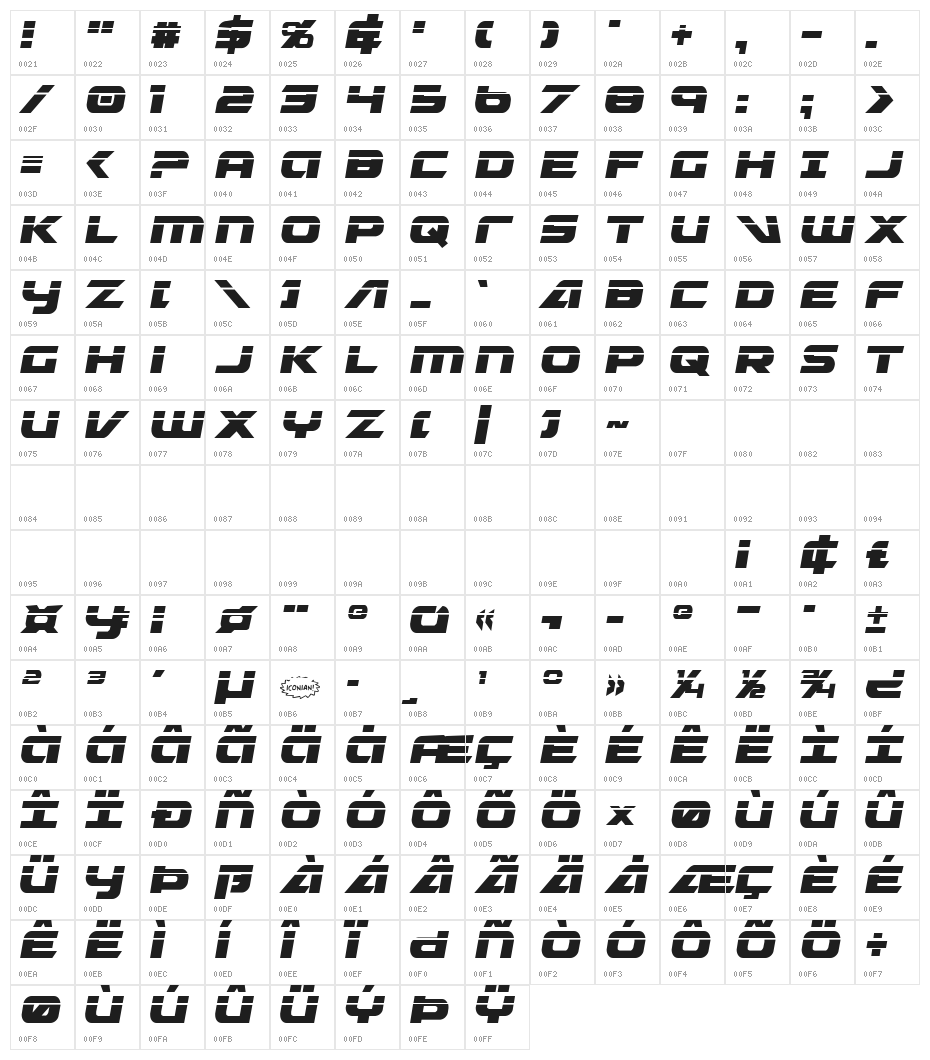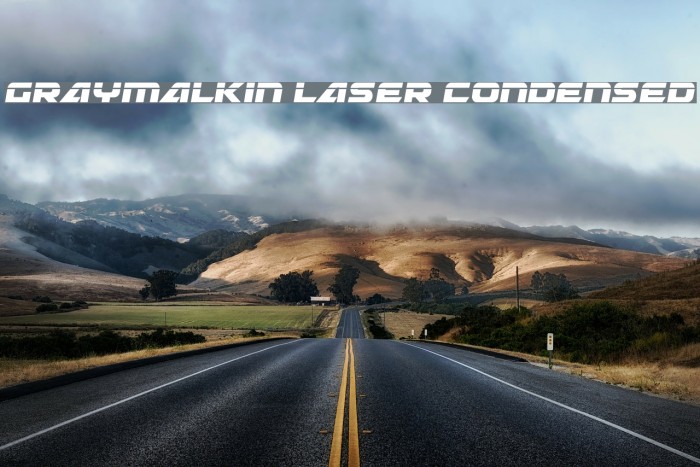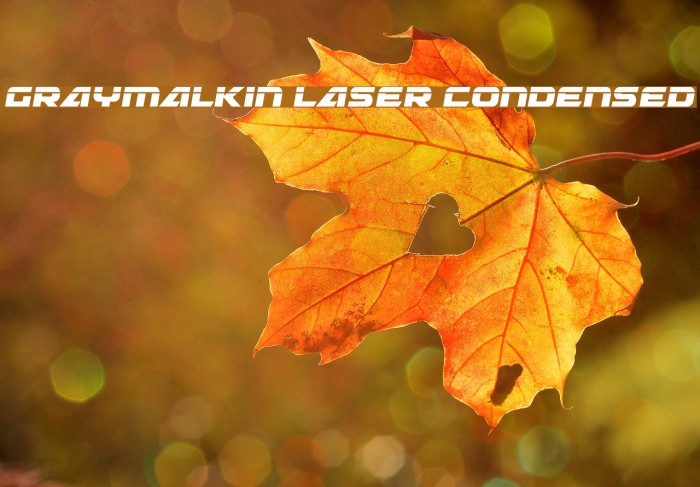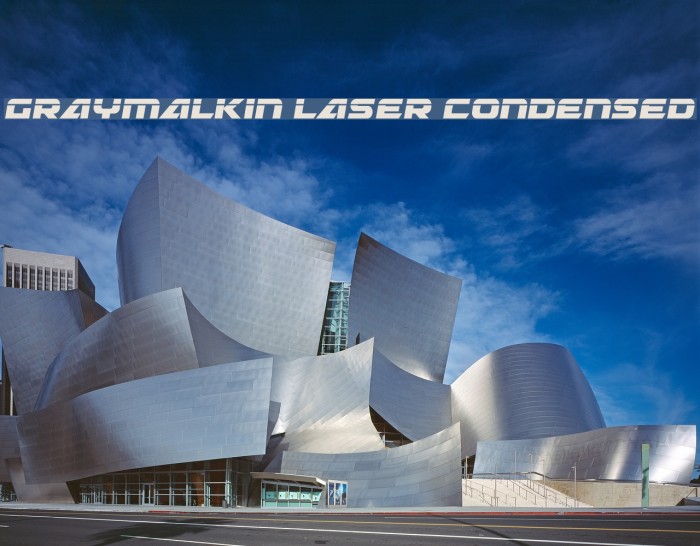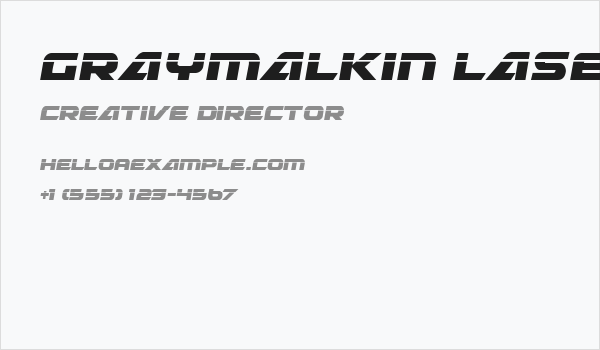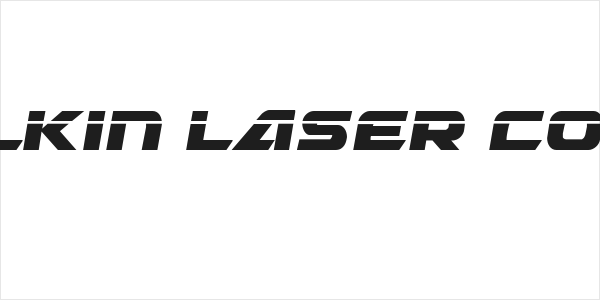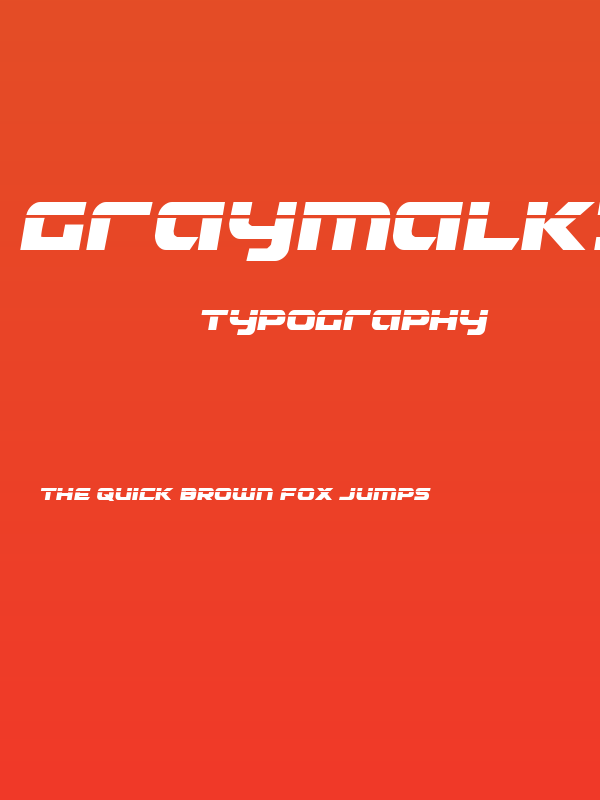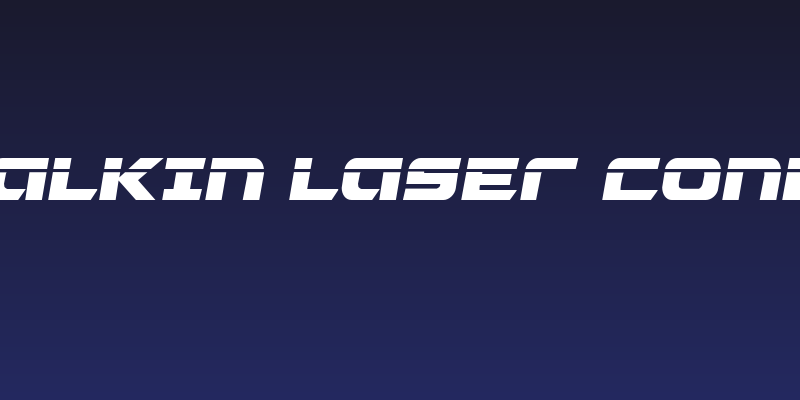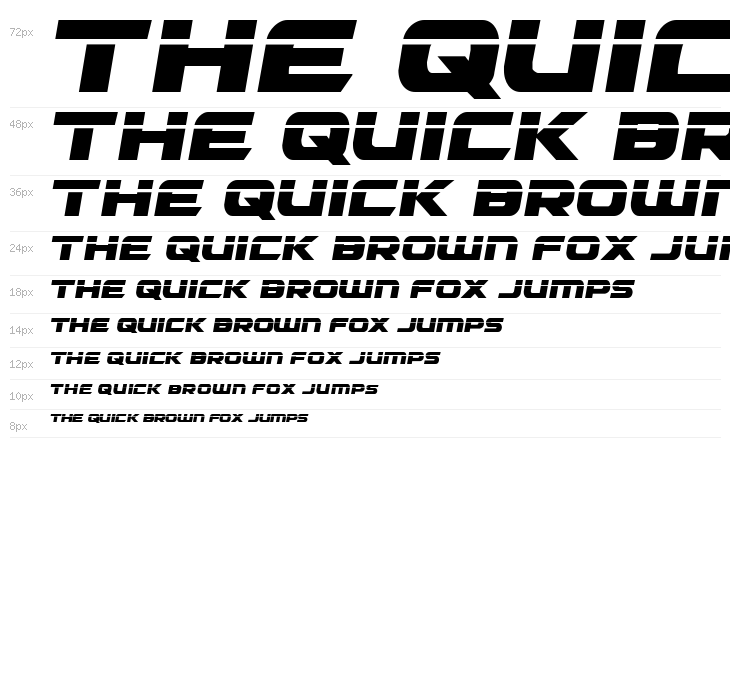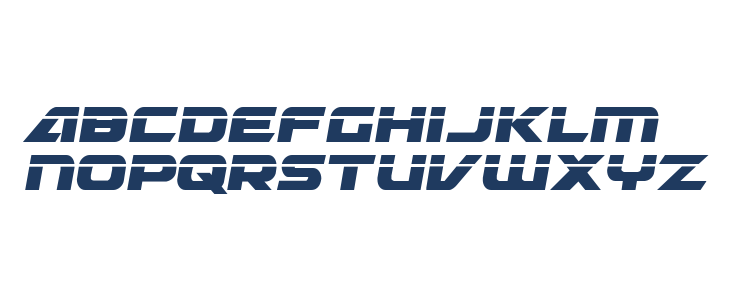
Graymalkin Laser Condensed Font
Graymalkin Laser Condensed Description
This font features a futuristic and angular design, characterized by its sharp edges and geometric shapes. The letters are condensed, giving a sleek and compact appearance. The uppercase and lowercase letters maintain a consistent style, with a strong emphasis on horizontal and diagonal lines. The numbers and special characters follow the same design principles, ensuring uniformity across all glyphs. The font's boldness and unique style make it stand out, ideal for projects that require a modern and edgy look.
| Proposed Projects | Ideal for sci-fi themed projects, video game titles, technology branding, and modern poster designs. |